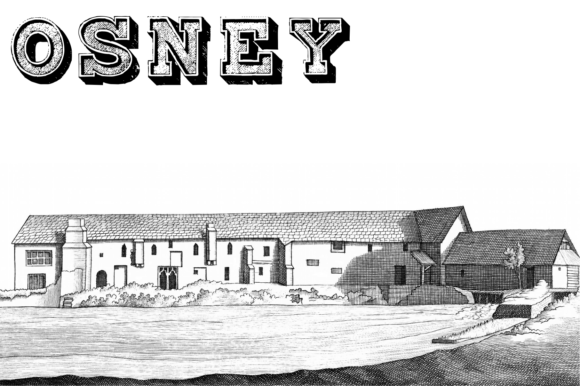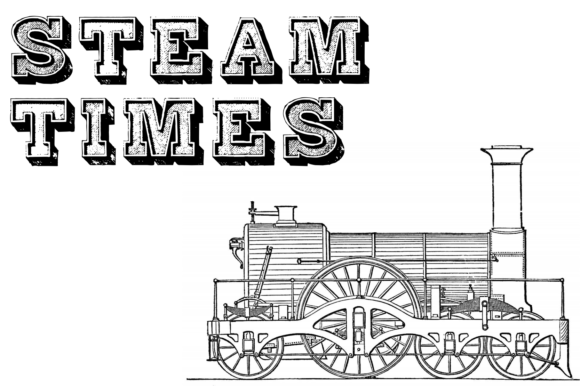
Introducing Alphabet Fantasie Font: A Striking Display Typeface
The Alphabet Fantasie Font is a stunning display typeface that has been making waves in the design community. Its bold letters and excellent readability make it an ideal choice for titles, headings, and other applications where you want to make a statement. In this article, we’ll take a closer look at the Alphabet Fantasie Font, its features, and how you can use it to elevate your designs.
What is Alphabet Fantasie Font?
The Alphabet Fantasie Font is a carefully crafted typeface designed to grab attention. Its bold and sturdy letters are perfect for creating eye-catching titles, headings, and captions. The font’s unique design ensures that it remains readable even at smaller sizes, making it a versatile choice for various design applications.
Key Features of Alphabet Fantasie Font
- Bold and Sturdy Letters: The Alphabet Fantasie Font features bold and sturdy letters that are designed to make a statement. Its robust design ensures that your text stands out, whether it’s used for titles, headings, or captions.
- Excellent Readability: One of the standout features of the Alphabet Fantasie Font is its excellent readability. Even at smaller sizes, the font remains clear and easy to read, making it perfect for a wide range of design applications.
- Unique Design: The Alphabet Fantasie Font has a unique design that sets it apart from other typefaces. Its distinctive letterforms and bold lines make it an excellent choice for designers looking to add a touch of personality to their work.
- Versatile: The Alphabet Fantasie Font is incredibly versatile and can be used for a wide range of design applications, from titles and headings to captions and body text.
Who Can Benefit from Alphabet Fantasie Font?
The Alphabet Fantasie Font is an excellent choice for designers, crafters, and anyone looking to add a touch of personality to their work. Here are some examples of who can benefit from this amazing typeface:
- Graphic Designers: Graphic designers can use the Alphabet Fantasie Font to create stunning titles, headings, and captions for their designs. Its bold and sturdy letters make it perfect for creating eye-catching text that grabs attention.
- Crafters: Crafters can use the Alphabet Fantasie Font to add a personal touch to their projects. Whether it’s a handmade card, scrapbook, or other craft project, this font is sure to make it stand out.
- Sign Makers: Sign makers can use the Alphabet Fantasie Font to create bold and eye-catching signs that grab attention. Its excellent readability makes it perfect for signs that need to be read from a distance.
How to Use Alphabet Fantasie Font?
Using the Alphabet Fantasie Font is easy. Here are some tips to get you started:
- Pair it with Other Fonts: The Alphabet Fantasie Font can be paired with other fonts to create a unique and visually appealing design. Try pairing it with a sans-serif font for a bold and modern look.
- Use it for Titles and Headings: The Alphabet Fantasie Font is perfect for titles and headings. Use it to create eye-catching text that grabs attention.
- Experiment with Colors: The Alphabet Fantasie Font can be used with a wide range of colors. Experiment with different colors to find the one that works best for your design.
The Alphabet Fantasie Font is a striking display typeface that is sure to make a statement. Its bold letters and excellent readability make it an ideal choice for titles, headings, and other applications where you want to grab attention. Whether you’re a designer, crafter, or sign maker, this font is sure to elevate your work. So why wait? Download the Alphabet Fantasie Font today and start creating stunning designs that grab attention!